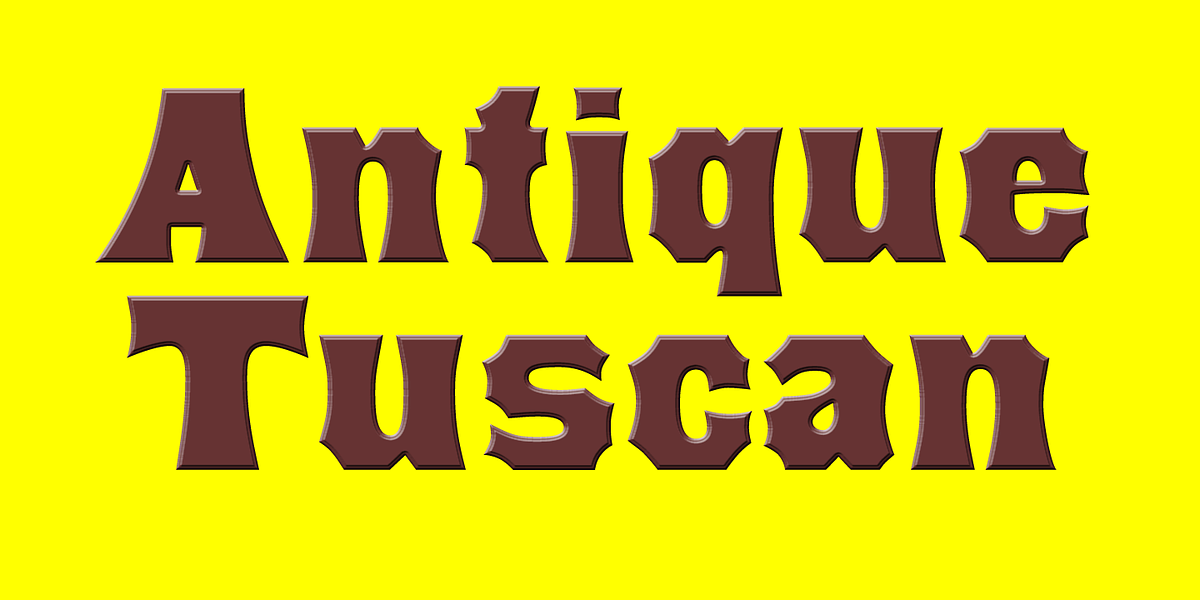
Antique Tuscan
This font is a revival of a popular wood type design from the 19th century. Its bold weight and condensed form make it well-suited for display purposes such as headlines. The curved serifs give the font a distinctive and slightly ornate appearance characteristic of the era.